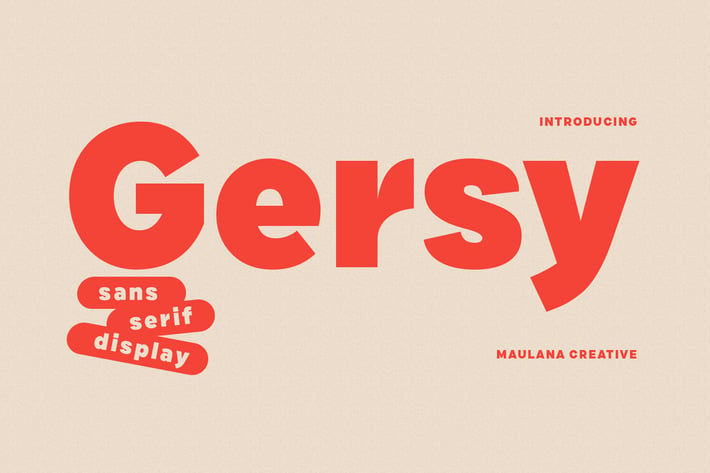
Gersy Sans Serif Display Font
Gersy is a fancy sans serif display font. With bold stroke, fun character. To give you an extra creative work. Gersy font support multilingual more than 100+ language. This font is good for logo design, Social media, Movie Titles, Books Titles, a short text even a long text letter and good for your secondary text font with script or serif. Make a stunning work with Gersy font.